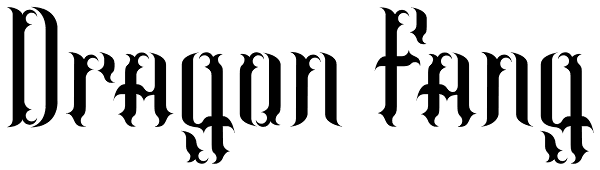
Dragon Fang
Dragon Fang is a headline display font set. The style suggests Medieval font forms but in a contemporary sense. The font contains uppercase and lowercase letterforms which include a few alternate characters. Look for the swash “B” and “D” to give...